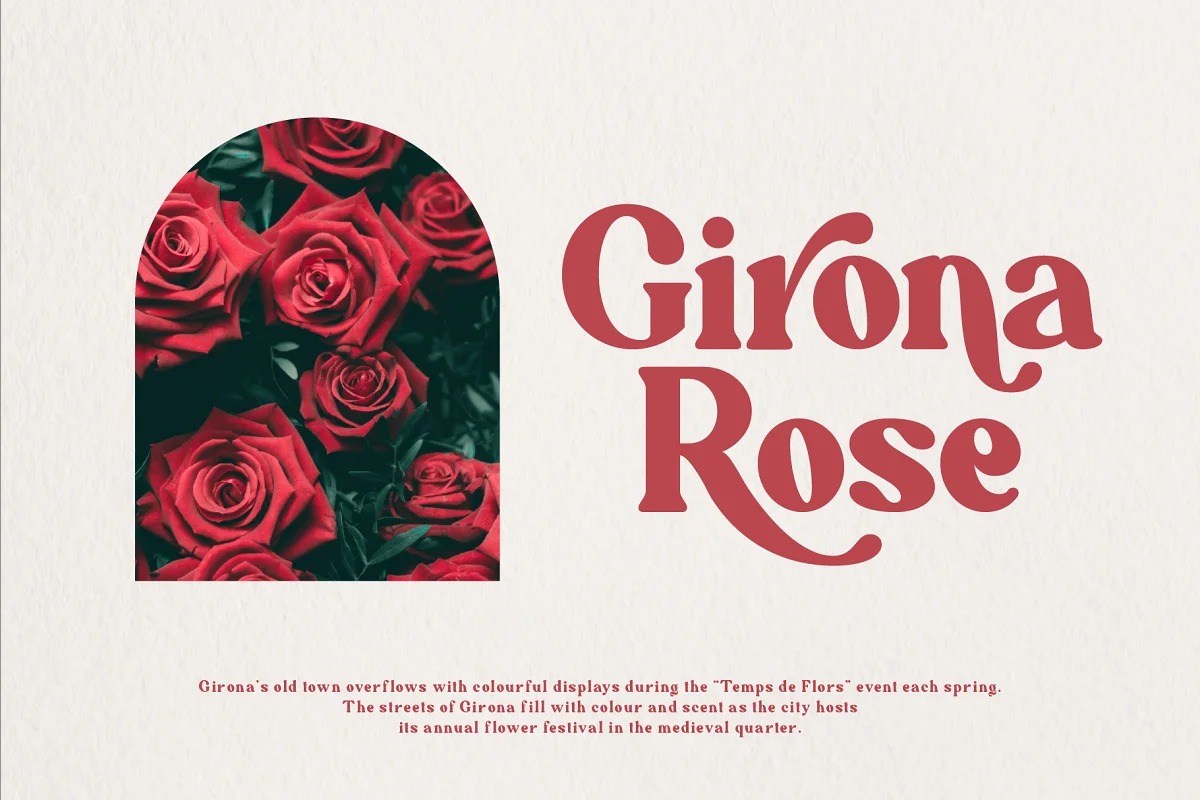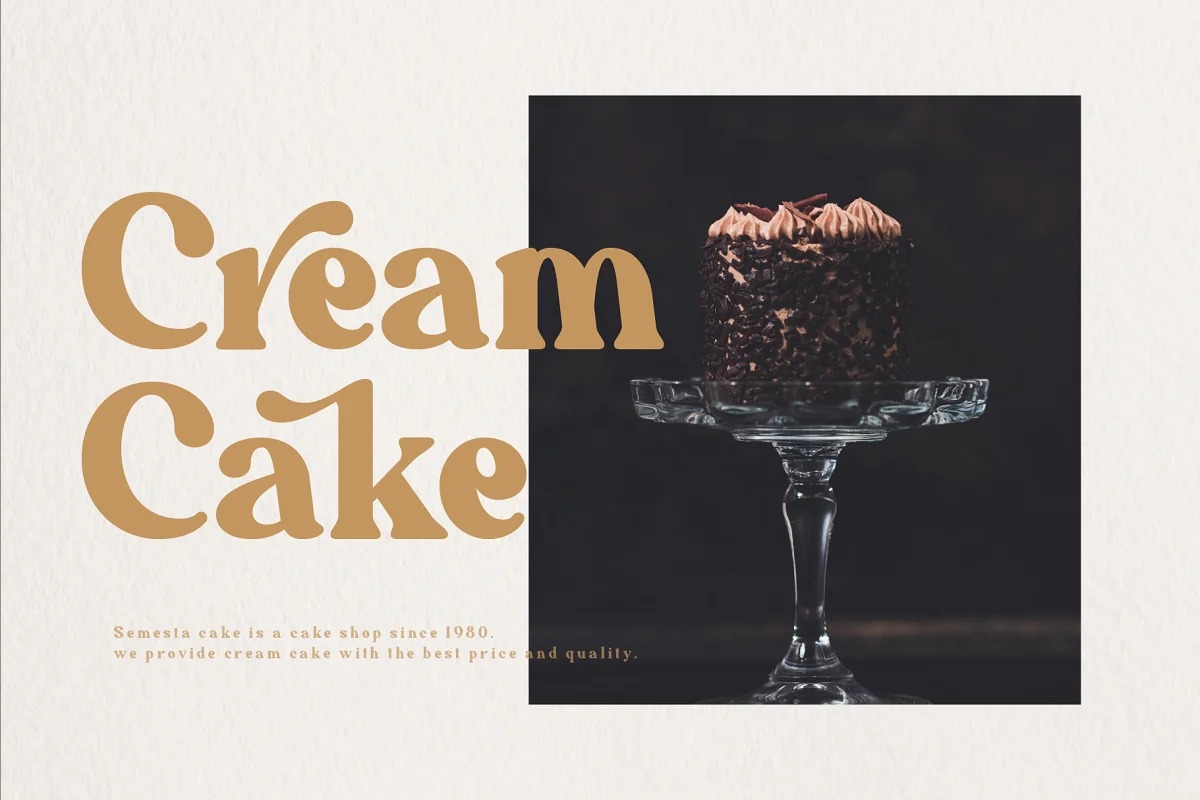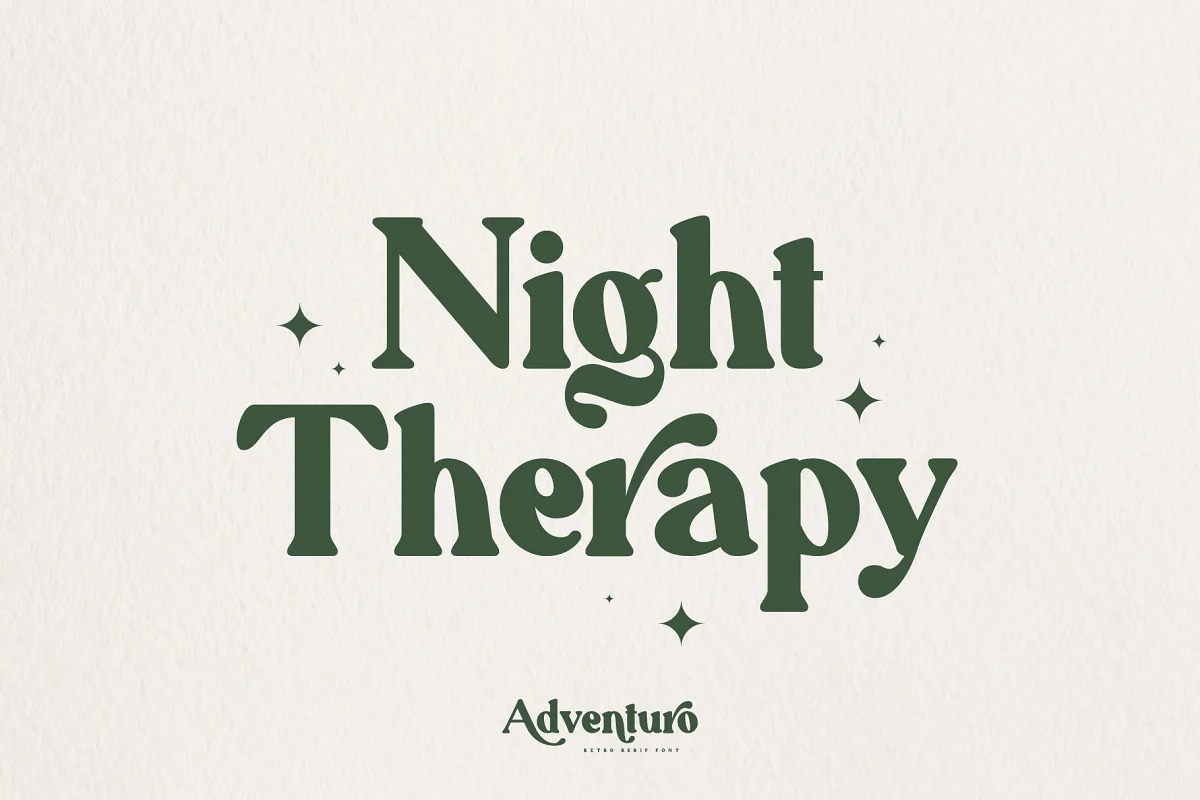
Adventuro Serif Font is a sophisticated, charming serif typeface created by Pen Culture with a fashionable touch and unique style. This font has more than 20 alternates that will help you in project design such as branding, logos, packaging, magazine imagery, posters and many more.
Adventuro